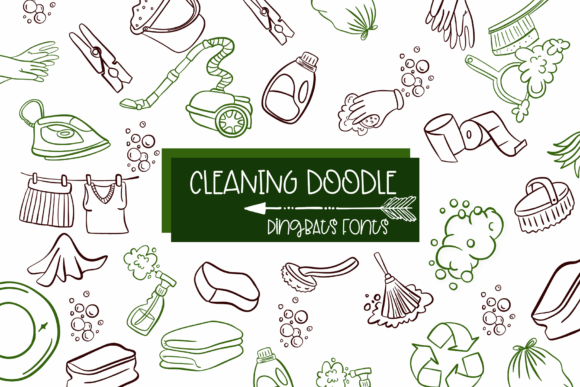
Introducing Cleaning Doodle Font: Elevate Your Creative Projects with a Sketched Theme
Are you looking for a unique and creative way to add a personal touch to your projects? Look no further than the Cleaning Doodle Font, a dingbats font with a charming sketched theme. This versatile font is perfect for a wide range of creative endeavors, from wedding invitations and DIY crafts to decorations, logos, and more.
What is Cleaning Doodle Font?
Cleaning Doodle Font is a dingbats font that features a delightful sketched theme. Dingbats fonts, also known as symbol fonts, are a type of font that consists of graphical symbols, such as icons, shapes, and illustrations, rather than traditional letters and numbers. The Cleaning Doodle Font takes this concept to the next level with its beautifully hand-sketched designs, giving your projects a personal and artistic feel.
Features of Cleaning Doodle Font
The Cleaning Doodle Font boasts a range of features that make it an ideal choice for creative projects. Some of its key features include:
- Unique Sketched Theme: The font’s sketched theme gives it a charming, hand-drawn feel that’s perfect for adding a personal touch to your projects.
- Versatile Design: The Cleaning Doodle Font is designed to be versatile, making it suitable for a wide range of creative projects, from wedding invitations to DIY crafts and decorations.
- Easily Customizable: As a dingbats font, the Cleaning Doodle Font allows you to easily customize your text by replacing letters and numbers with illustrations and symbols.
- Scalable: The font is highly scalable, ensuring that it looks great in any size or resolution.
Uses of Cleaning Doodle Font
The Cleaning Doodle Font is an incredibly versatile font that can be used in a wide range of creative projects. Here are some ideas to get you started:
- Wedding Invitations: Add a personal touch to your wedding invitations with the Cleaning Doodle Font’s beautiful, hand-sketched designs.
- DIY Crafts: Use the font to create custom labels, cards, and decorations for your DIY crafts.
- Decorations: The Cleaning Doodle Font is perfect for creating custom signs, banners, and decorations for parties, events, and special occasions.
- Logos: Use the font to create unique and memorable logos for your business or brand.
- Social Media Graphics: Add a personal touch to your social media graphics, such as Instagram posts and Facebook covers, with the Cleaning Doodle Font.
Tips for Using Cleaning Doodle Font
Here are some tips for getting the most out of the Cleaning Doodle Font:
- Experiment with Different Sizes: The Cleaning Doodle Font looks great in a range of sizes, so don’t be afraid to experiment to find the perfect size for your project.
- Mix and Match: Combine the Cleaning Doodle Font with other fonts to create a unique and eye-catching design.
- Use it for Headings: The font’s bold, sketched designs make it perfect for headings and titles.
- Add a Personal Touch: Use the Cleaning Doodle Font to add a personal touch to your projects, such as custom illustrations or monograms.
The Cleaning Doodle Font is a versatile and creative dingbats font that’s perfect for adding a personal touch to your projects. With its unique sketched theme, easily customizable design, and scalable graphics, this font is ideal for a wide range of creative endeavors. Whether you’re creating wedding invitations, DIY crafts, decorations, logos, or social media graphics, the Cleaning Doodle Font is sure to elevate your designs and make them stand out.